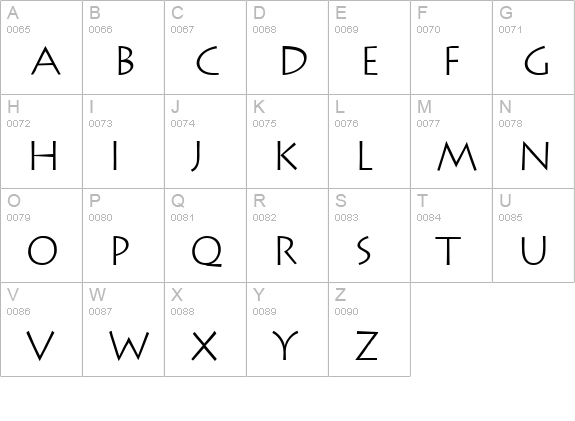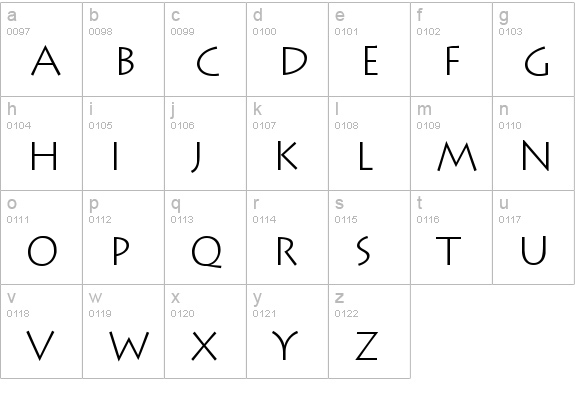
LithographLight font is a modern and stylish typeface that exudes sophistication and elegance. Its clean lines and smooth curves make it perfect for a wide range of design projects, from branding to editorial design. The light weight of the font adds a touch of delicacy and refinement to any text. What's even better is that LithographLight font is available for free download at FontsMarket.com. With just a few clicks, you can add this stunning typeface to your collection and elevate your design work to new heights. Don't miss out on the opportunity to enhance your projects with the timeless beauty of LithographLight font. Download it today and unleash your creativity!